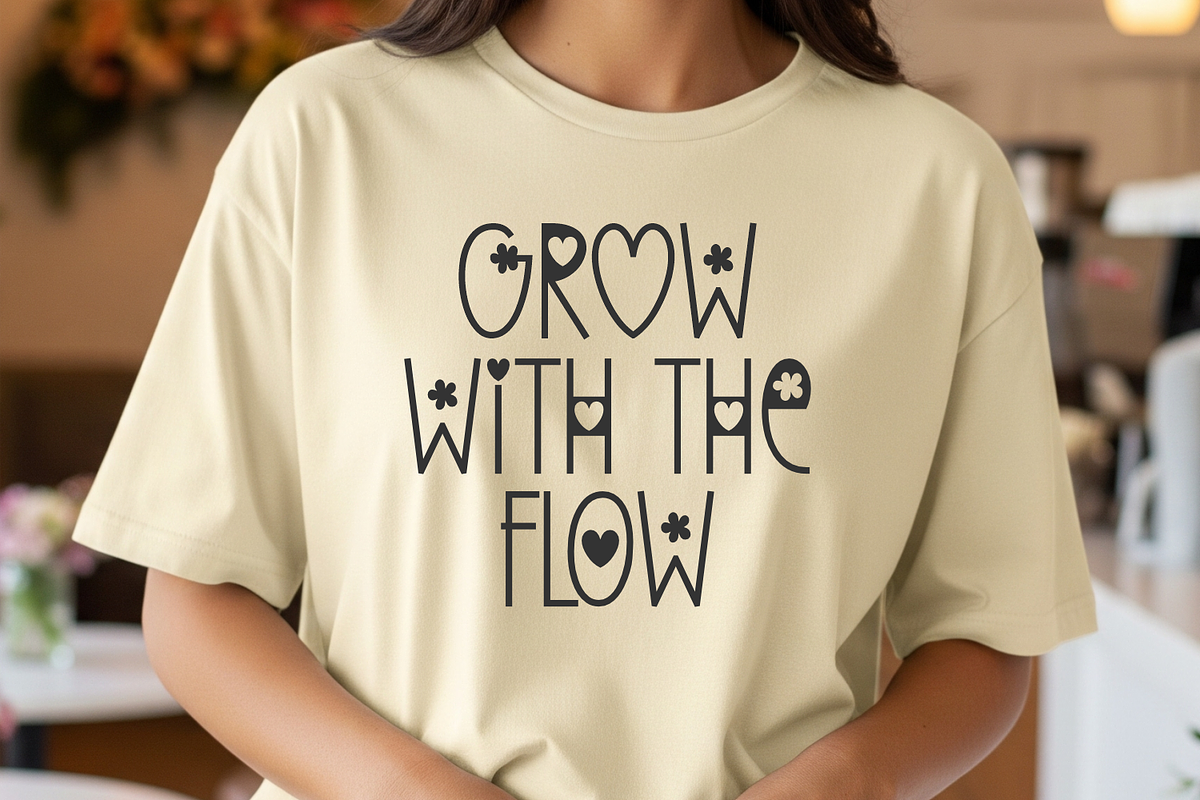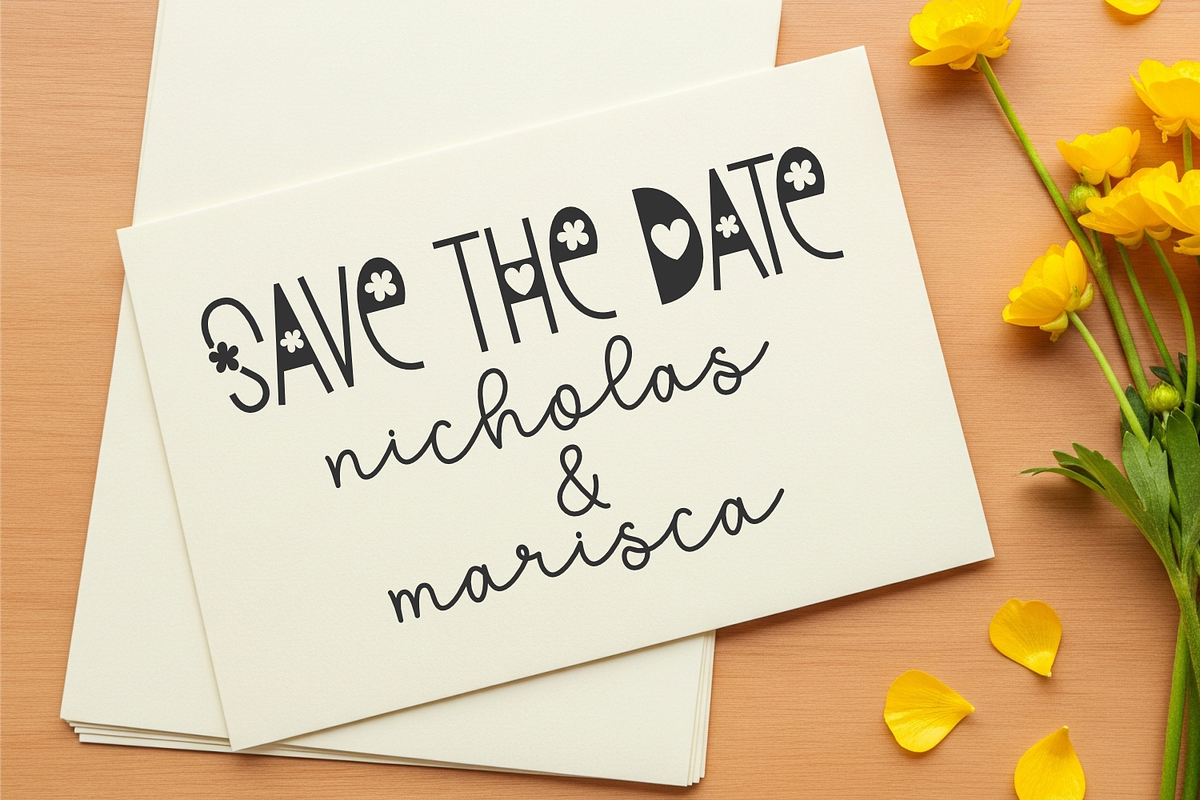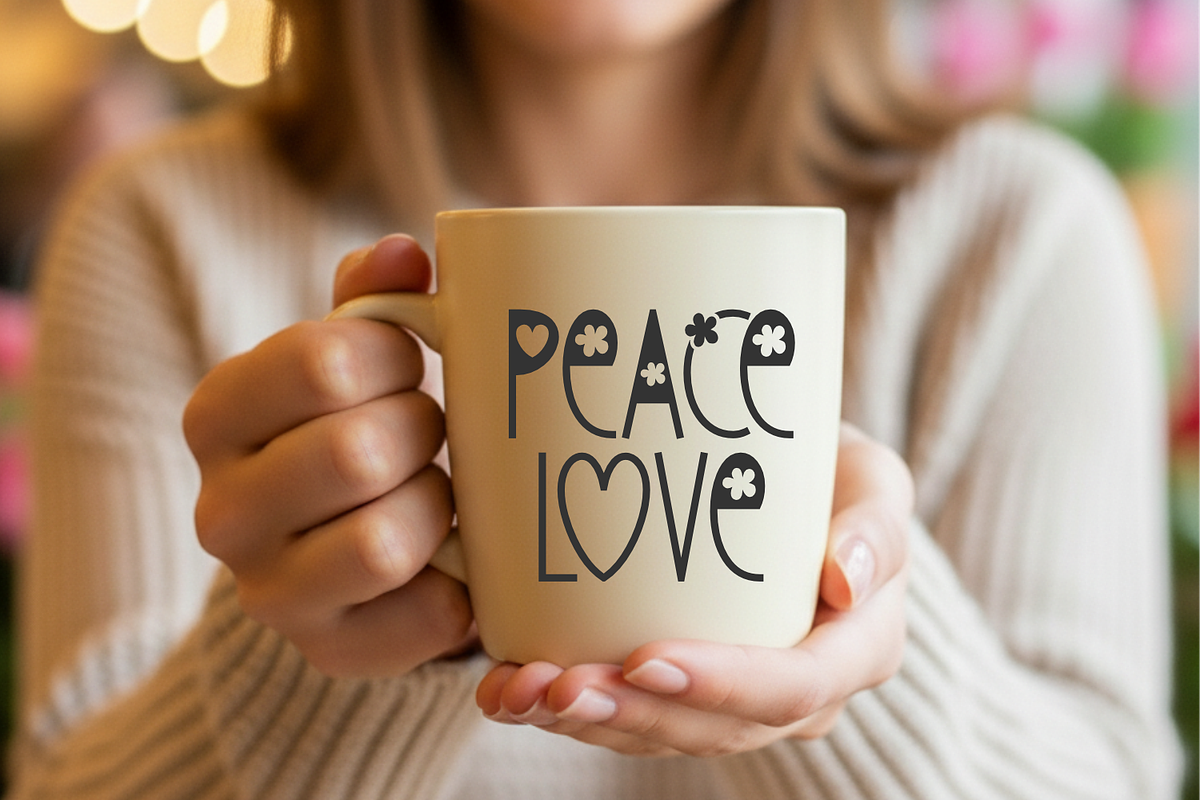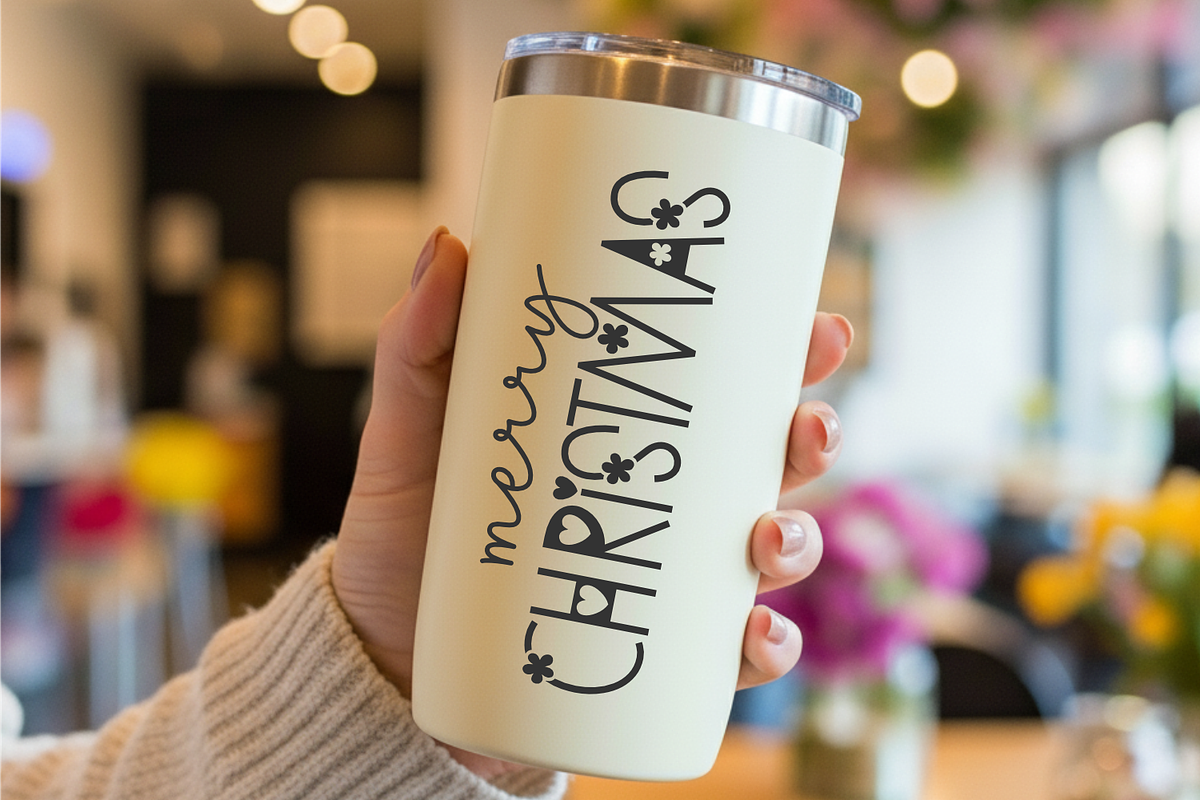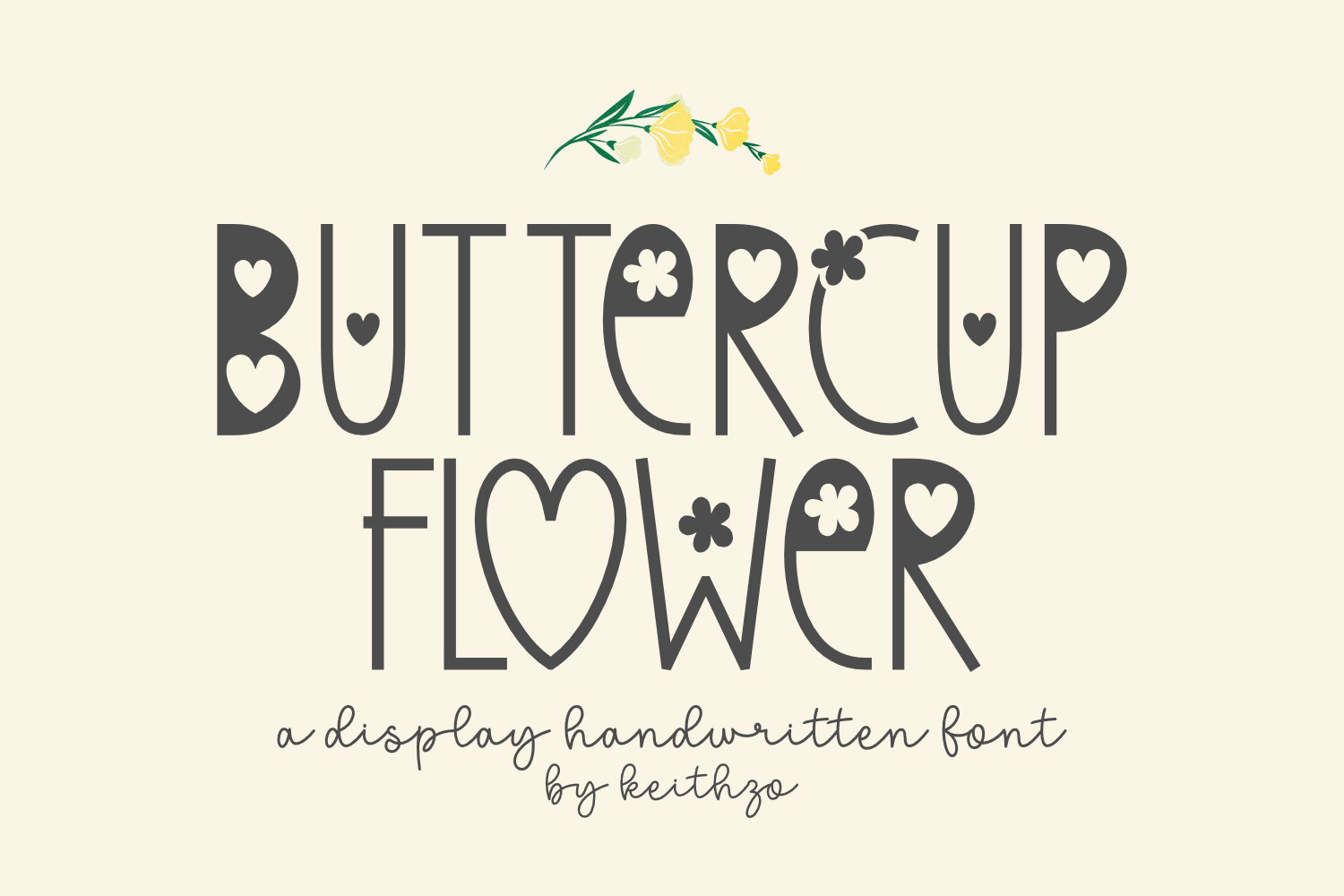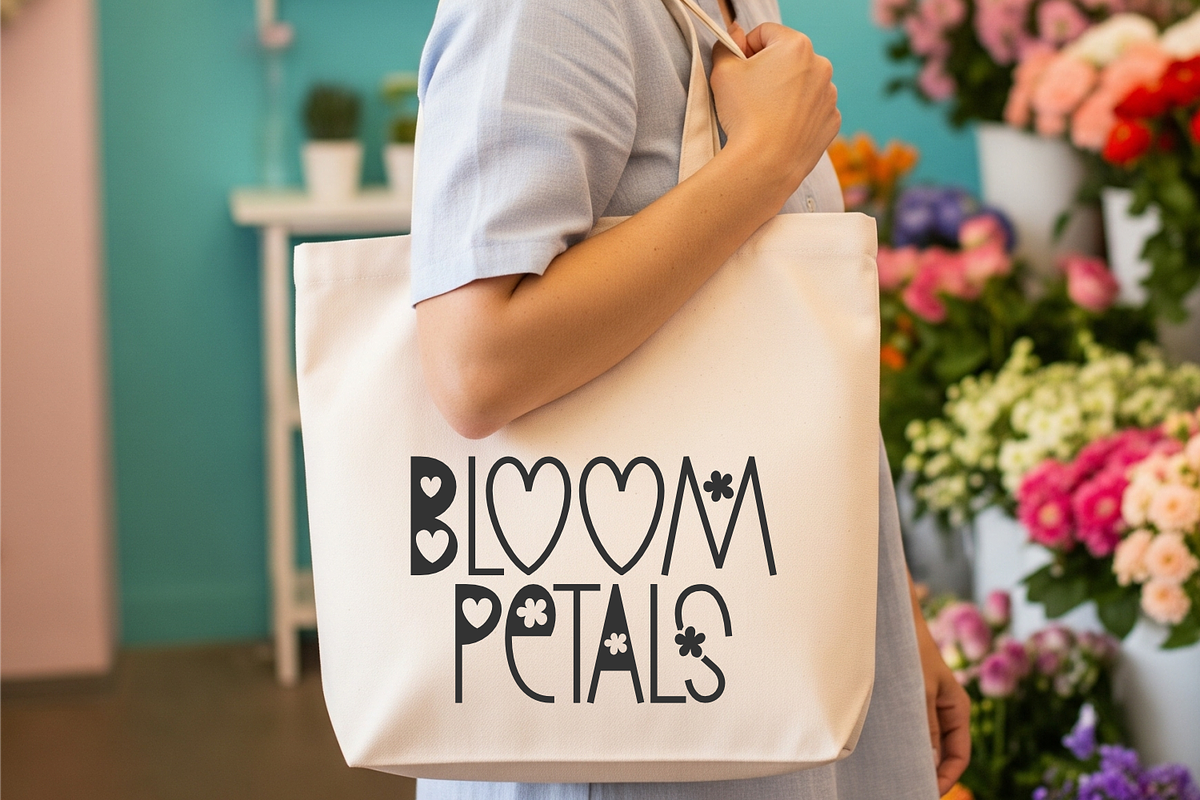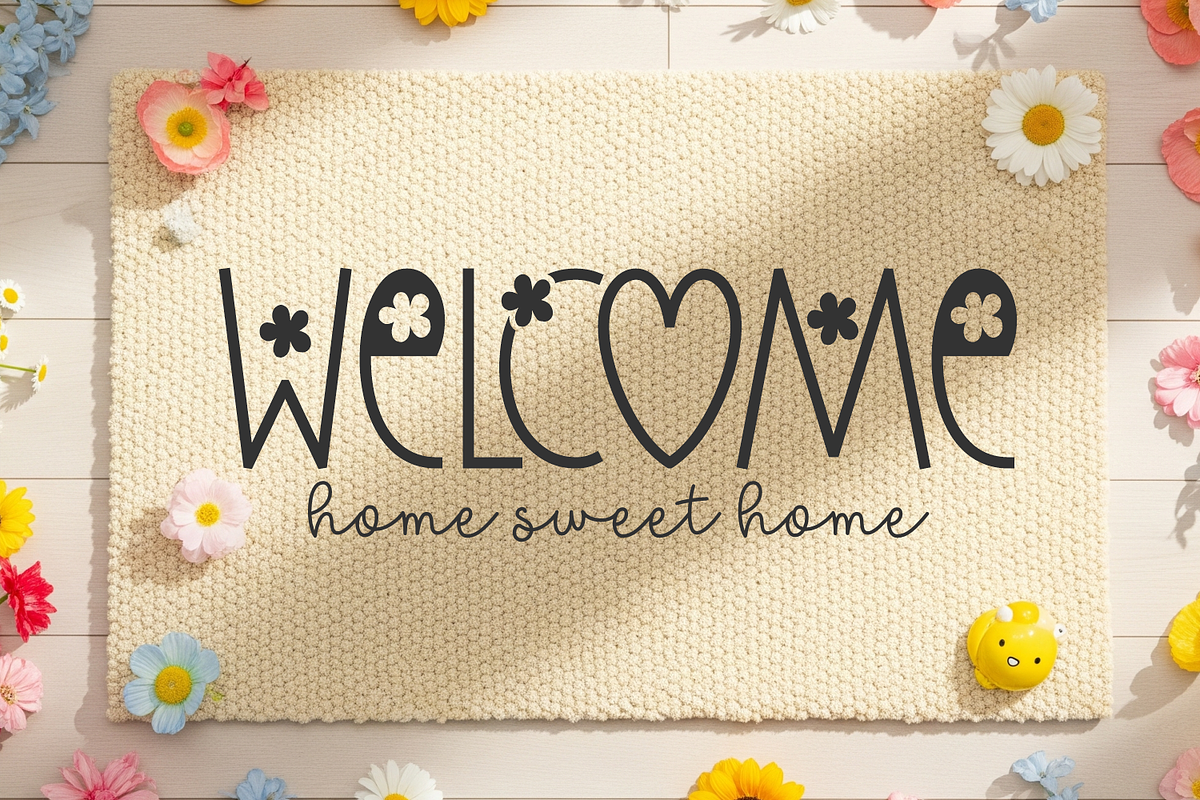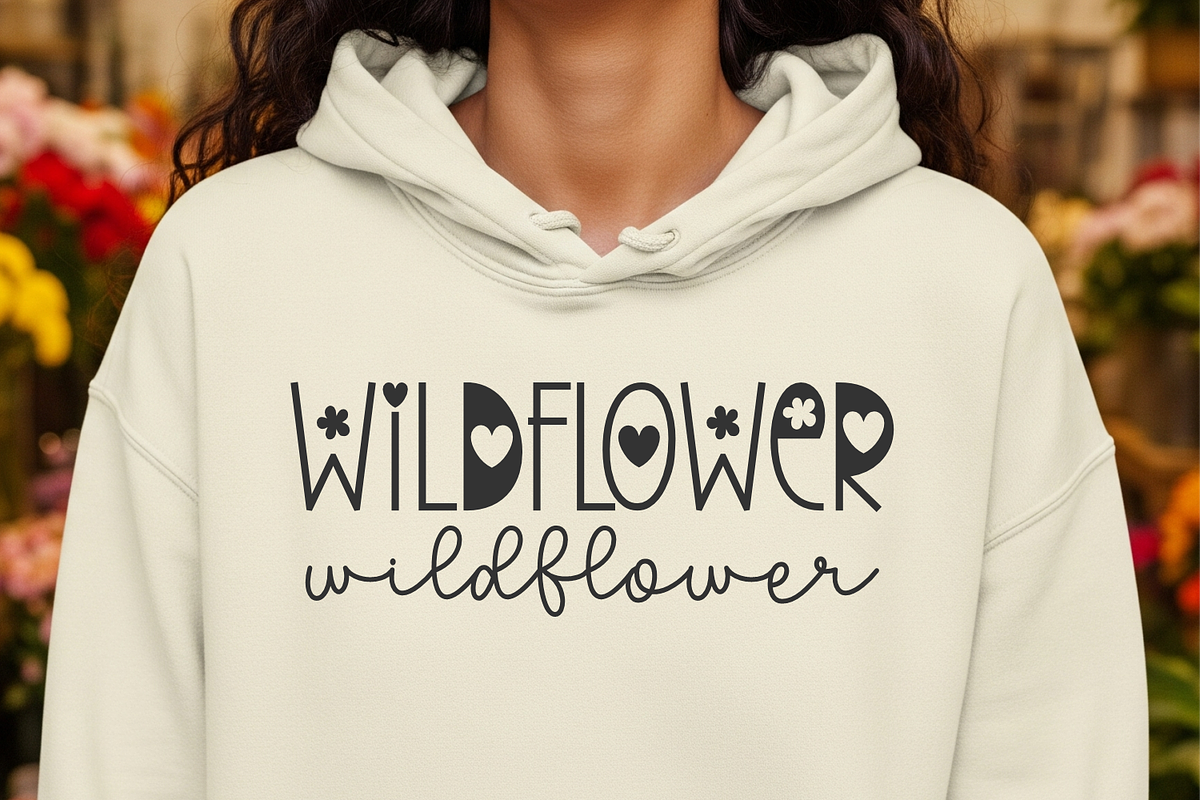
Buttercup Flower - Display Font
Introducing Buttercup Flower: A Display Handwritten Font Say hello to Buttercup Flower, a delightful and charming new font that brings a touch of warmth and whimsy to all your creative projects. This display handwritten font features a unique design where certain letterforms are replaced with playful hearts and delicate flowers, giving it an irresistibly cute and joyful personality.
With its playful, handwritten style and clean lines, Buttercup Flower is perfect for a wide range of applications. Whether you’re designing apparel, creating a greeting card, or putting together a logo, this font adds a touch of sweetness that captures the eye and the heart.
Unique Display Style, The built-in heart and flower characters within the letters make this font truly special, perfect for standing out. Ideal for branding, product packaging, t-shirts, mugs, invitations, and more. It shines on everything from a cozy hoodie to a welcoming doormat. Its handwritten look creates a personal and authentic vibe, making your designs feel more genuine and warm. Despite its decorative elements, the font remains clear and legible, ensuring your message gets across with a smile.